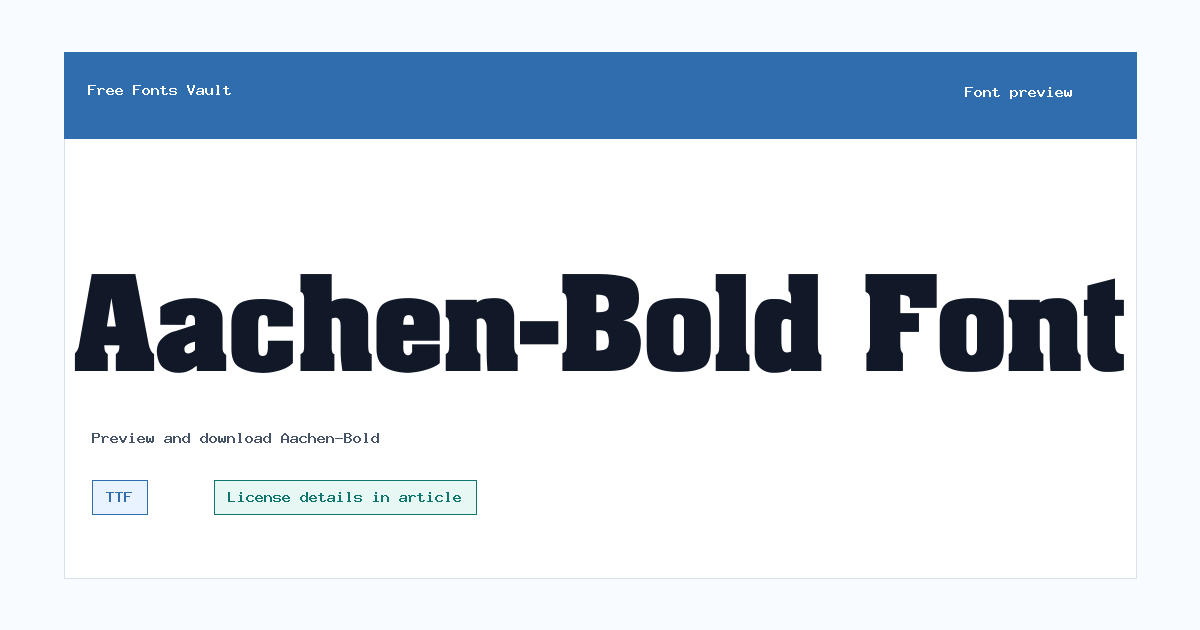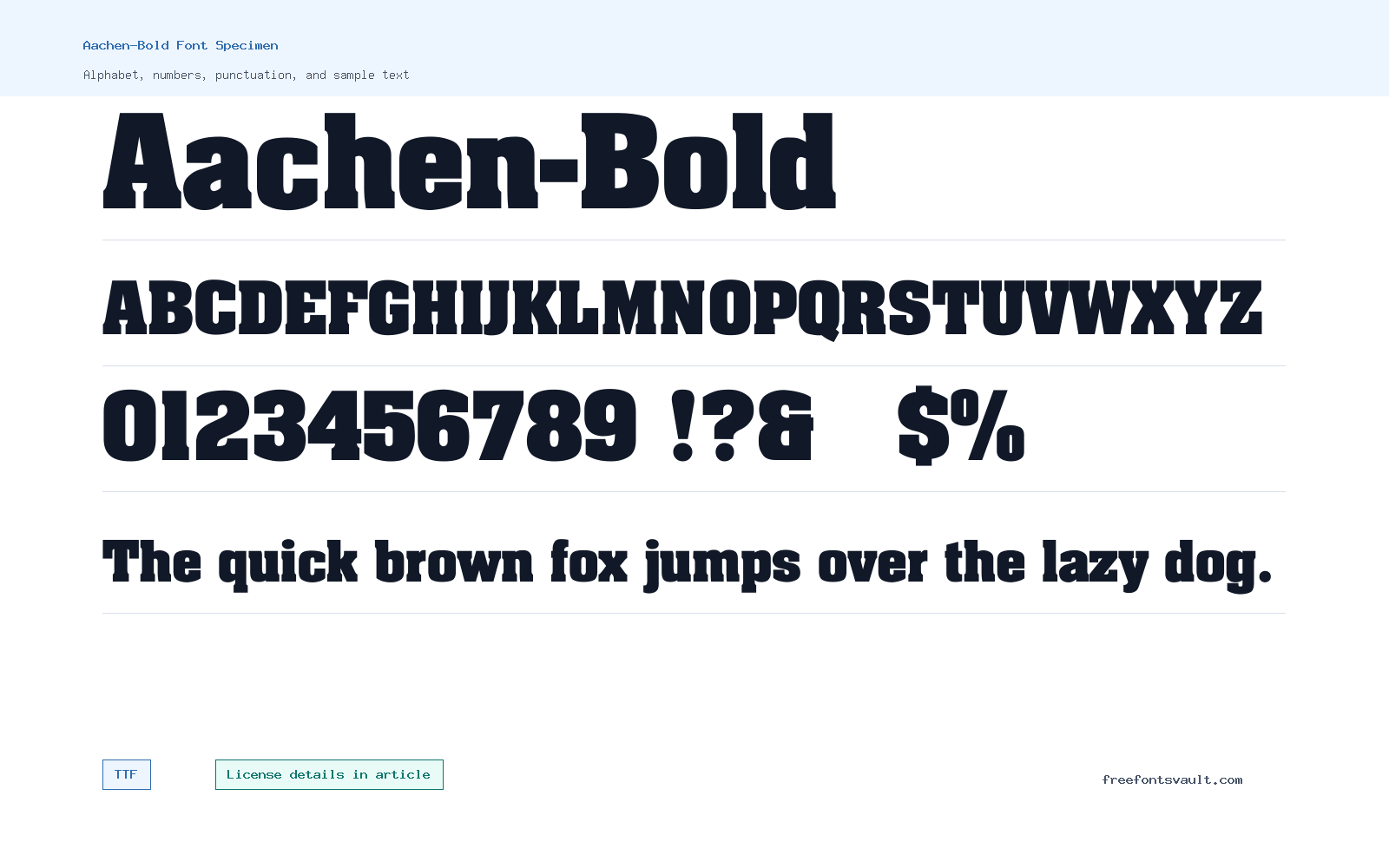
Aachen-Bold
- Designer Converted by ALLTYPE
Aachen-Bold is a heavy display font with a strong slab-serif look, built for text that needs weight and presence rather than quiet reading.
About Aachen-Bold
Aachen-Bold uses thick letterforms, squared details, and sturdy serifs that give short words a solid, poster-like feel. Its 700 weight makes it better suited to headlines, titles, logos, labels, badges, and other display settings where the text needs to stand out quickly.
Aachen-Bold is useful when a design needs immediate visual weight. It can make a short phrase feel established, sturdy, and print-like, especially in retro layouts, sports graphics, packaging drafts, menu boards, badge designs, and poster headlines. The bold style gives strong presence, but it also needs space; cramped layouts can make the letters feel heavy rather than confident.
Use the preview with the actual words from your project. Test all caps, mixed case, numbers, ampersands, and short brand names. If the letters crowd together, add tracking or reduce the number of words. For a balanced design, let Aachen-Bold handle the headline and use a lighter serif or neutral sans serif for the supporting copy.
- Bold 700-weight display style with slab-serif character
- Strong slab-serif voice for retro, sports, packaging, and poster layouts
- Heavy weight that should be tested with spacing before final export
- Headlines, posters, banners, and title graphics
- Labels, badges, short branding text, and bold display layouts
- Menu boards, badges, labels, sports graphics, packaging drafts, and bold title cards
Use Aachen-Bold for short, high-impact text. Increase spacing when needed, keep line lengths short, and pair it with a simpler font for paragraphs and small details.
What kind of font is Aachen-Bold?
Aachen-Bold is a bold slab-serif display font. It is best for short text such as headlines, posters, labels, and title designs.
Can I use Aachen-Bold for body text?
It is better for display text than long paragraphs. For body copy, pair it with a simpler, lighter font that is easier to read at small sizes.
What should I pair with Aachen-Bold?
Pair it with a lighter serif or a neutral sans serif so the headline stays bold while the supporting text remains easy to read.
Is Aachen-Bold good for retro design?
Yes, its heavy slab-serif feel can work well in retro posters, labels, packaging drafts, badges, and sports-style graphics.